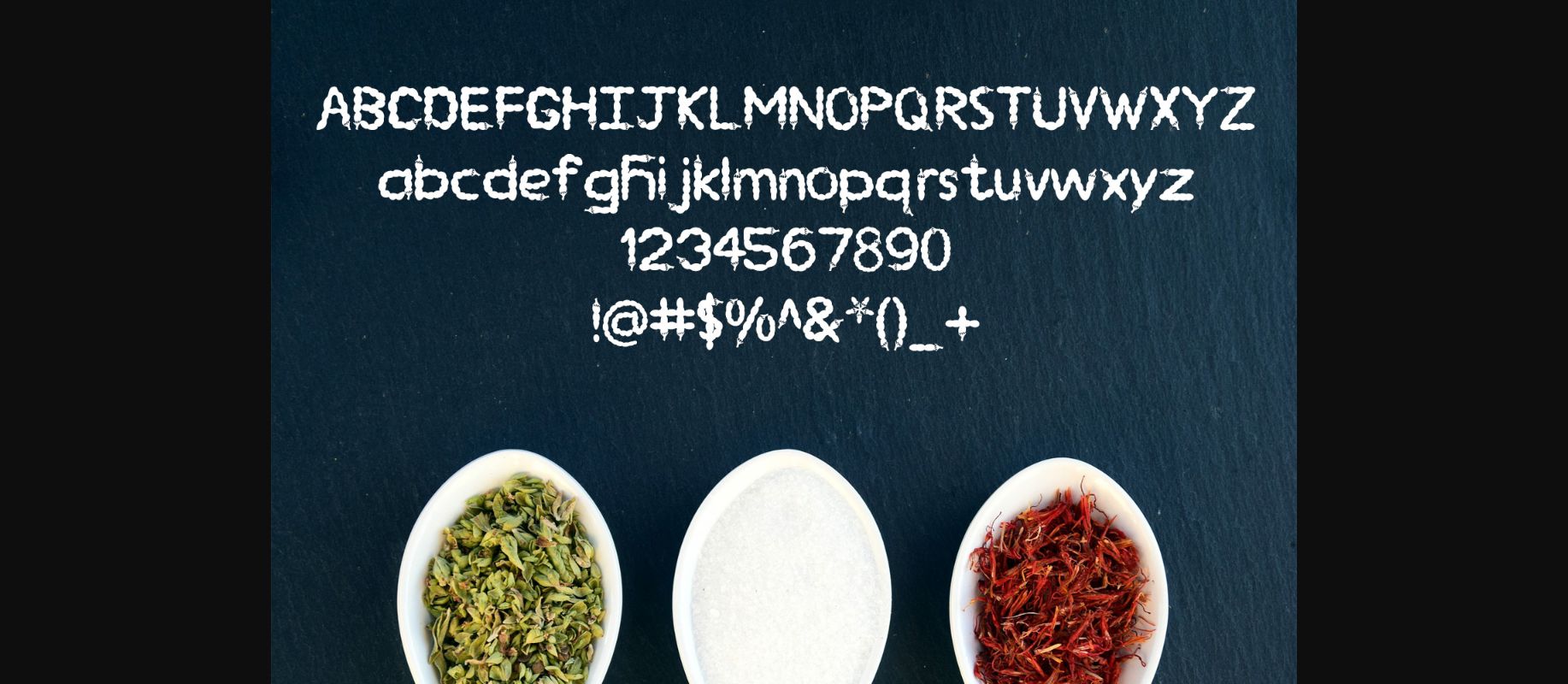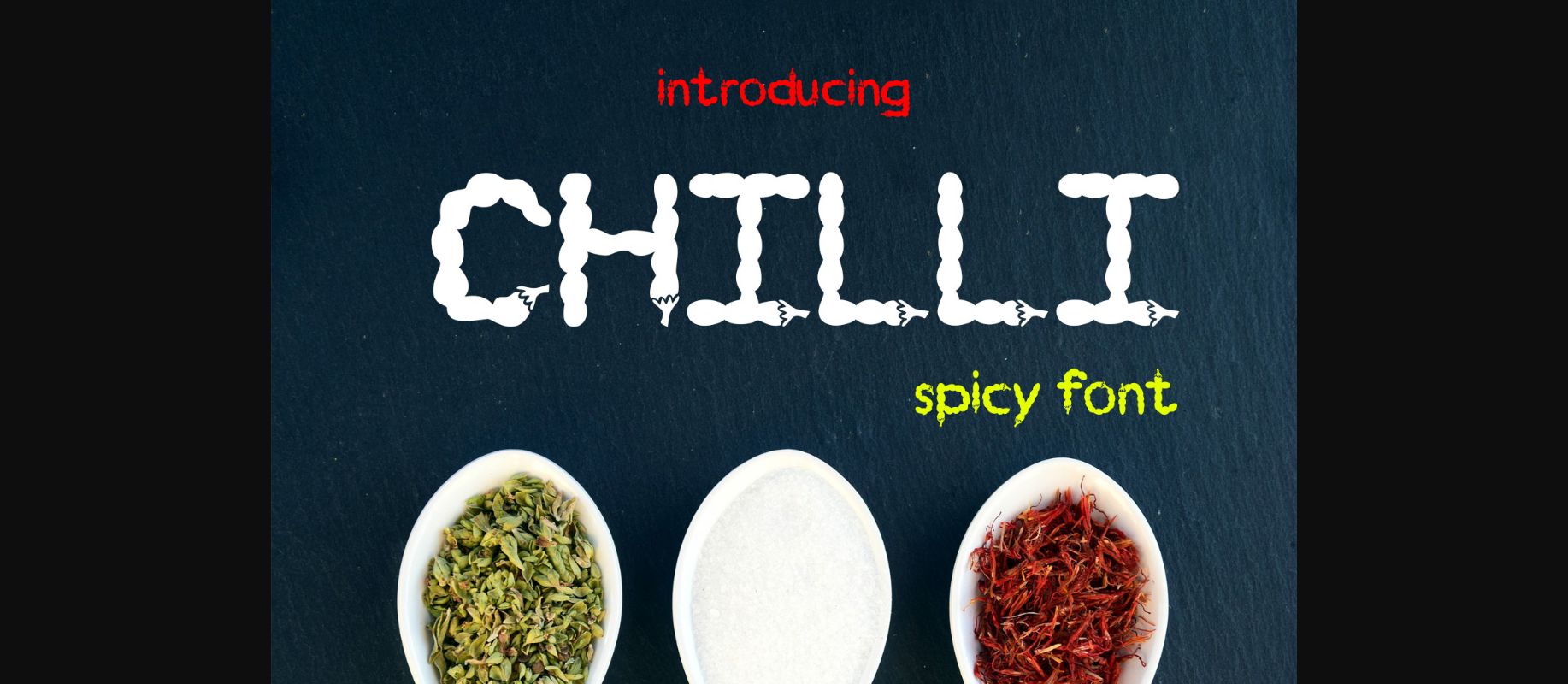
EP Chilli Font
About EP Chilli Font
EP Chilli is perfect for wedding cards, quotes, headings, blogs, logos, invitations and more! Font includes all caps, punctuation, and numbers.